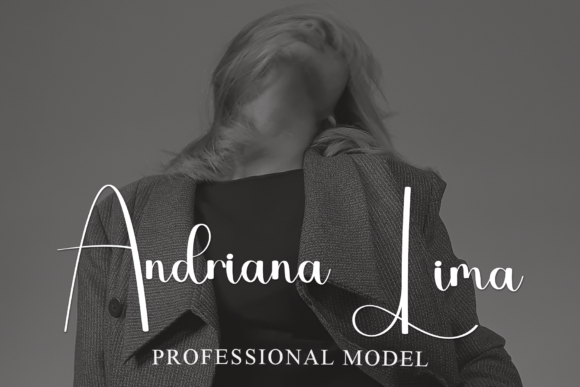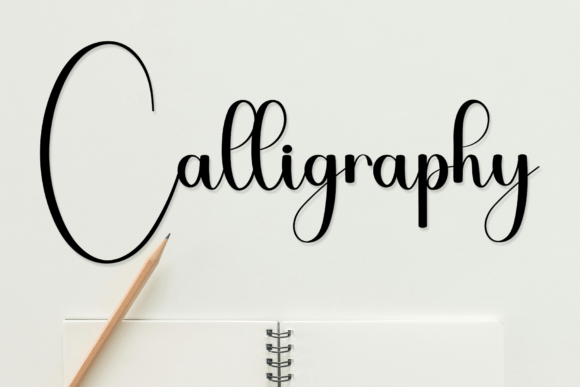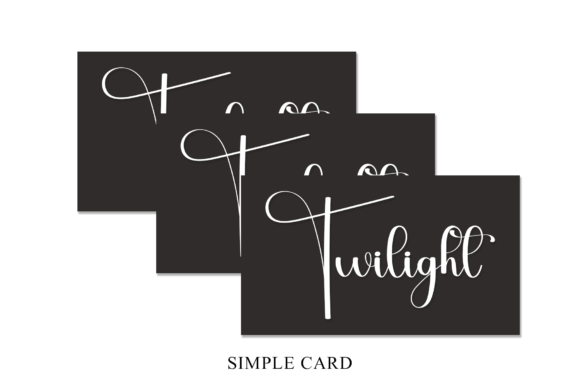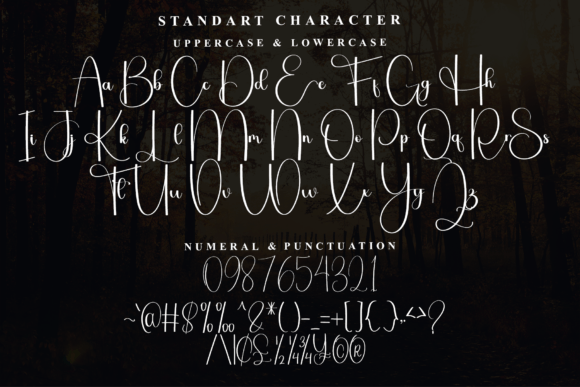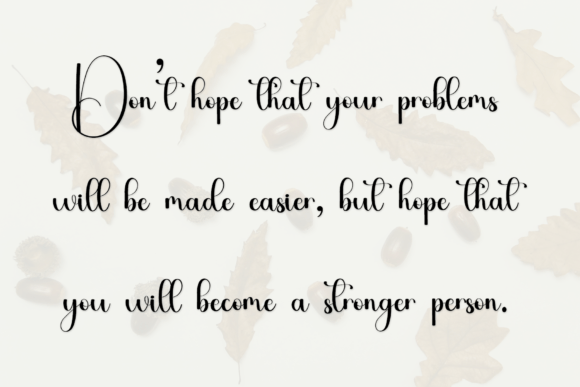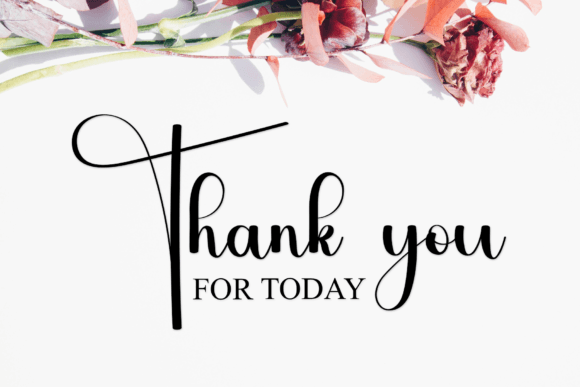
Introduction to Jumpink Font
Have you ever stared at a blank page, trying to come up with the perfect design concept for a creative project? You know, that feeling when the cursor blinks, and your mind goes blank? I’m sure many designers can relate to this moment of design-induced anxiety. But what if I told you that there’s a font that can breathe life into your designs, making them stand out and capture attention? Enter the lovely Jumpink Font, a timeless handwritten font that’s sure to elevate your designs to the next level.
With its unique and beautiful touch, the Jumpink Font is the perfect choice for creating eye-catching logos, branding, and quotes. Its high-quality design makes it a valuable resource for designers, and the fact that it’s PUA coded means you can access all the amazing glyphs and ligatures easily. Whether you’re working on a personal project or a client’s design, the Jumpink Font is sure to deliver.
Key Features of Jumpink Font
- Designed to be highly versatile, suitable for a wide range of design applications, from logos to digital art.
- Unique, handcrafted design with intricate details, making it a standout design resource for creative projects.
Honest Review: Jumpink Font
As a designer, I’m always on the lookout for high-quality fonts that can elevate my creative projects. Recently, I stumbled upon the Jumpink Font, and I was excited to give it a try.
Here are some things that work well with the Jumpink Font:
- ✨ Customizable: The font has a range of styles and weights, making it easy to customize to fit your design needs.
- ✨ High-quality: The font is crisp and clear, making it perfect for use in high-resolution designs.
- ✨ Transparent background: This makes it easy to layer the font over other design elements without any issues.
- ⚠️ Not suitable for all projects: While the font is versatile, it may not be the best choice for projects that require a more formal or traditional font.
Jumpink Font is a versatile design resource that can be used in a variety of creative projects, including social media graphics, presentations, and documents. Its high-quality design and transparent background make it perfect for use in digital designs.